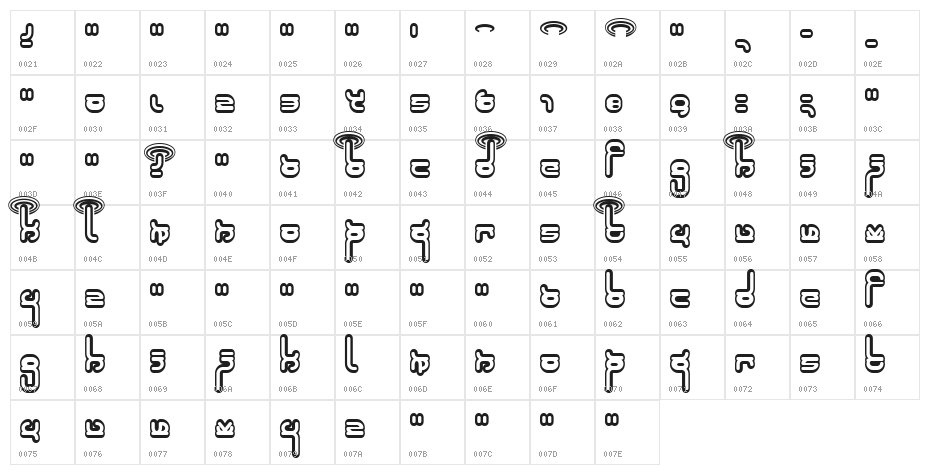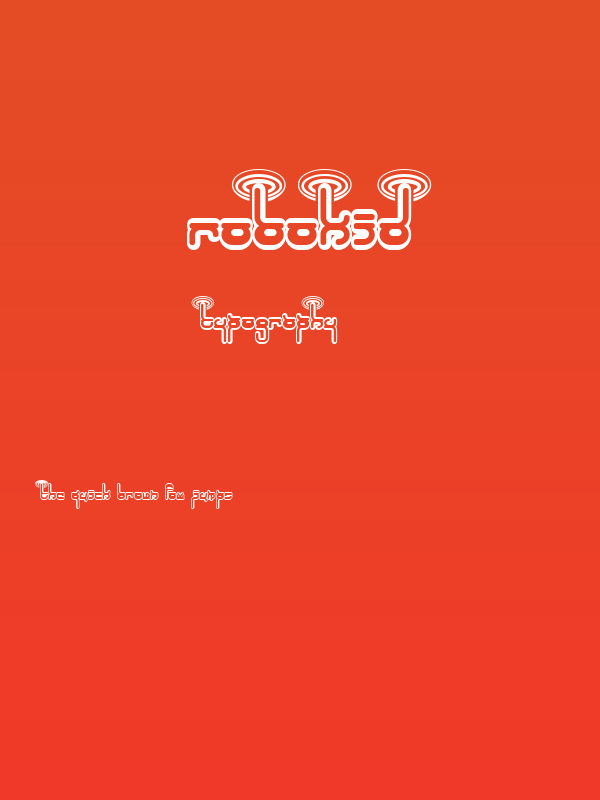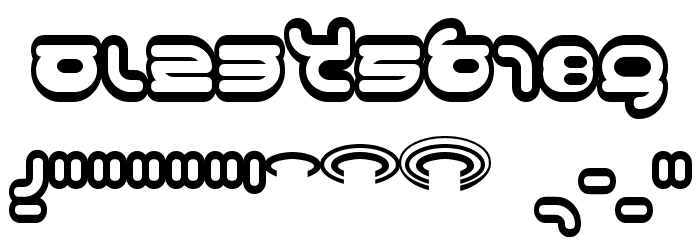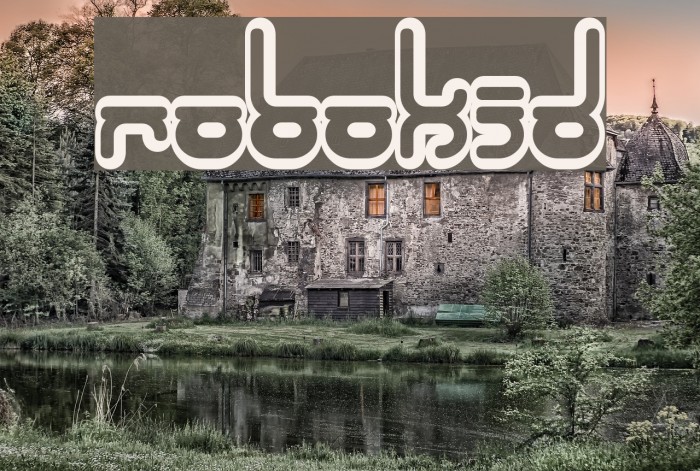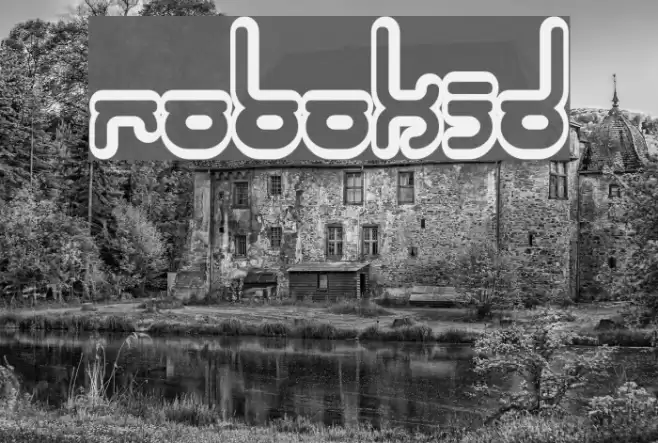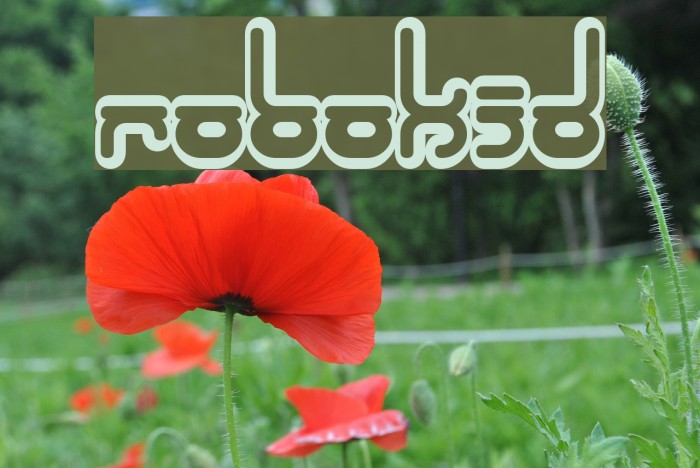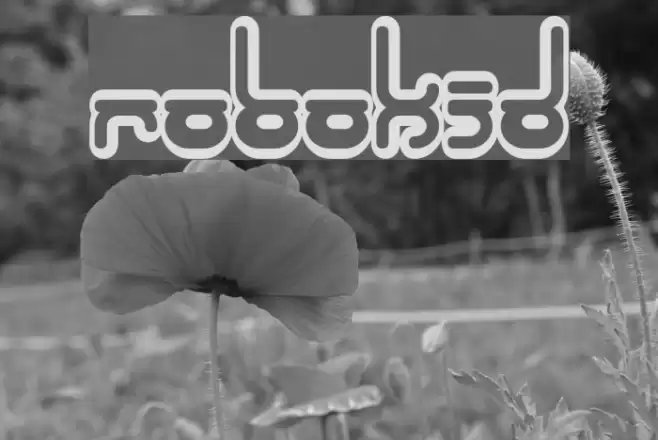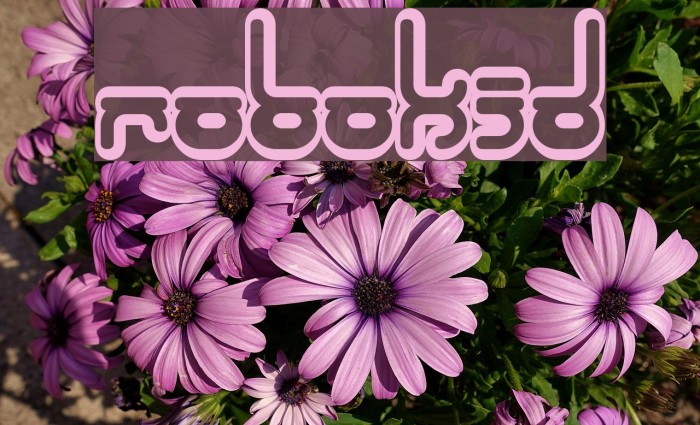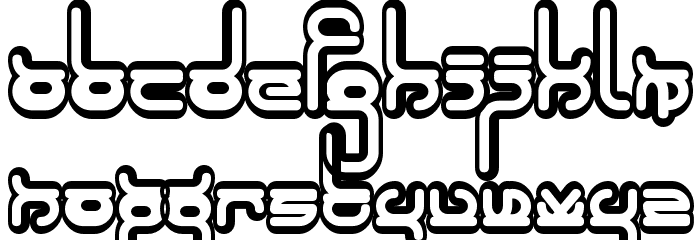
Robokid Font
Robokid Description
This font features a futuristic and playful design with bold, rounded characters that have a distinct, techno-inspired aesthetic. The letters are interconnected with a unique, continuous line style that gives them a cohesive and flowing appearance. The characters are outlined, creating a layered effect that adds depth and dimension. The font's geometric shapes and smooth curves make it visually striking and ideal for projects that require a modern and innovative look. It includes both uppercase and lowercase letters, numbers, and a selection of special characters, all maintaining the same distinctive style.
| Use Case | Logos, Headlines, Posters |
| Proposed Projects | Ideal for sci-fi themed designs, tech-related branding, video game titles, and modern posters. |